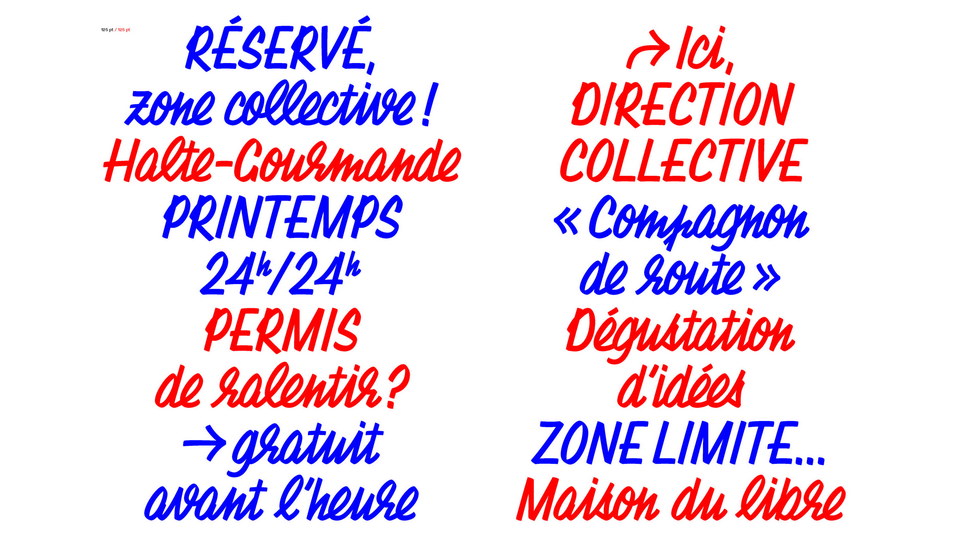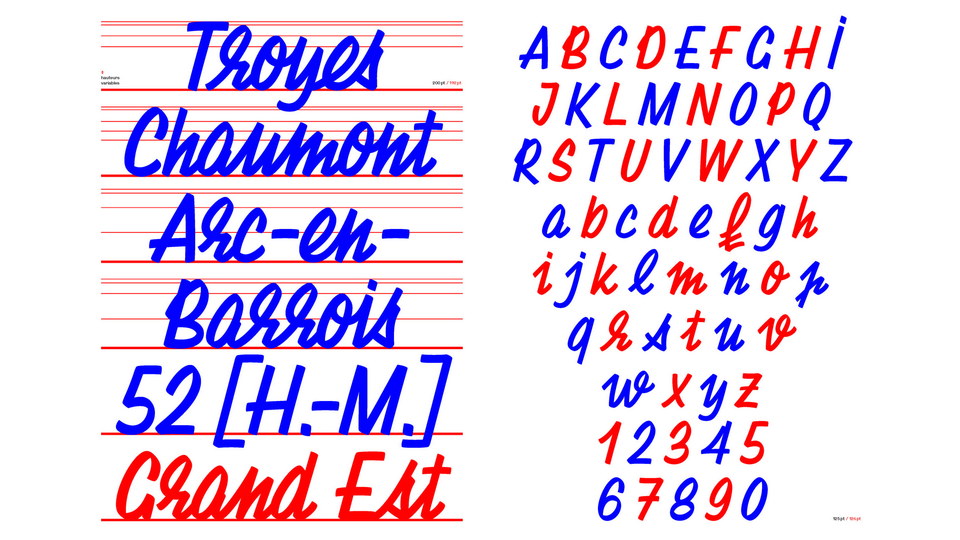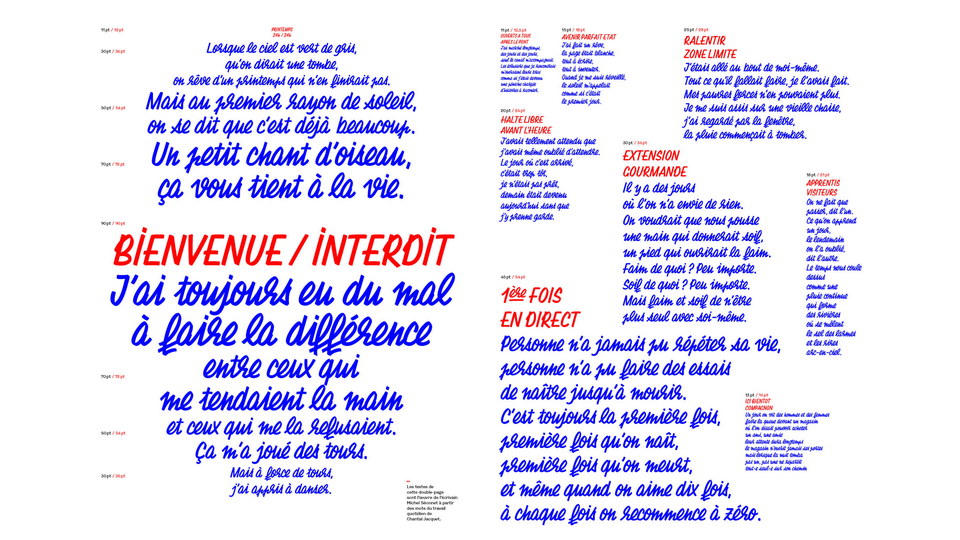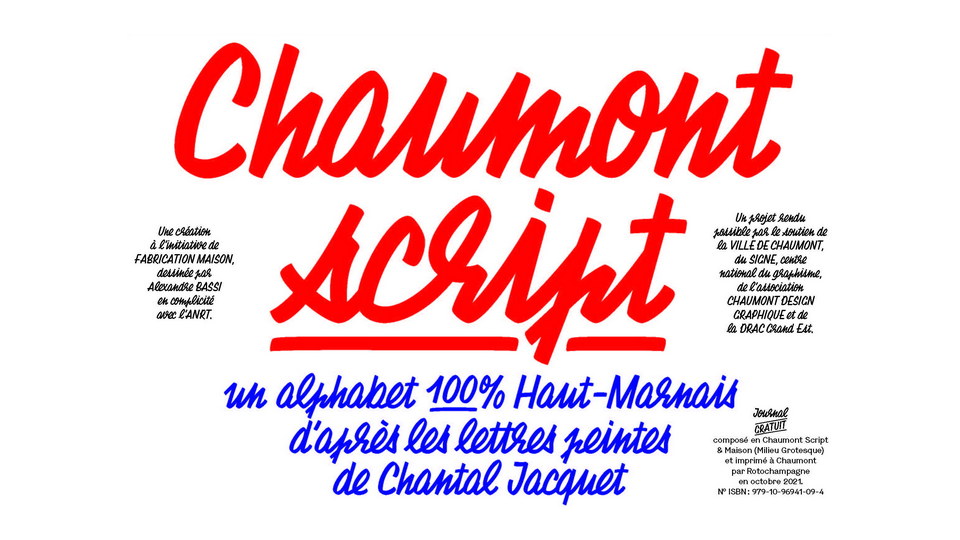
Chaumont Script Font
Chaumont Script is a hand lettered brush font based on the sign painting work by Chantal Jacquet seen in French town.
While simple and distinct, the typeface is very readable, making it great for branding, posters, packaging, quotes, invitations, headlines, etc.